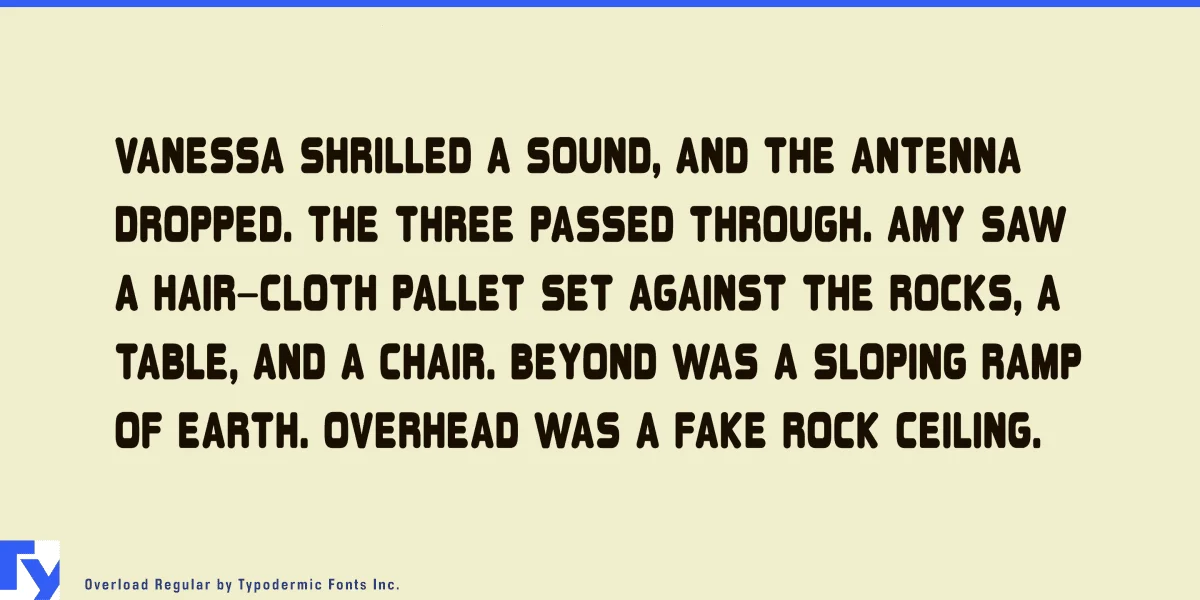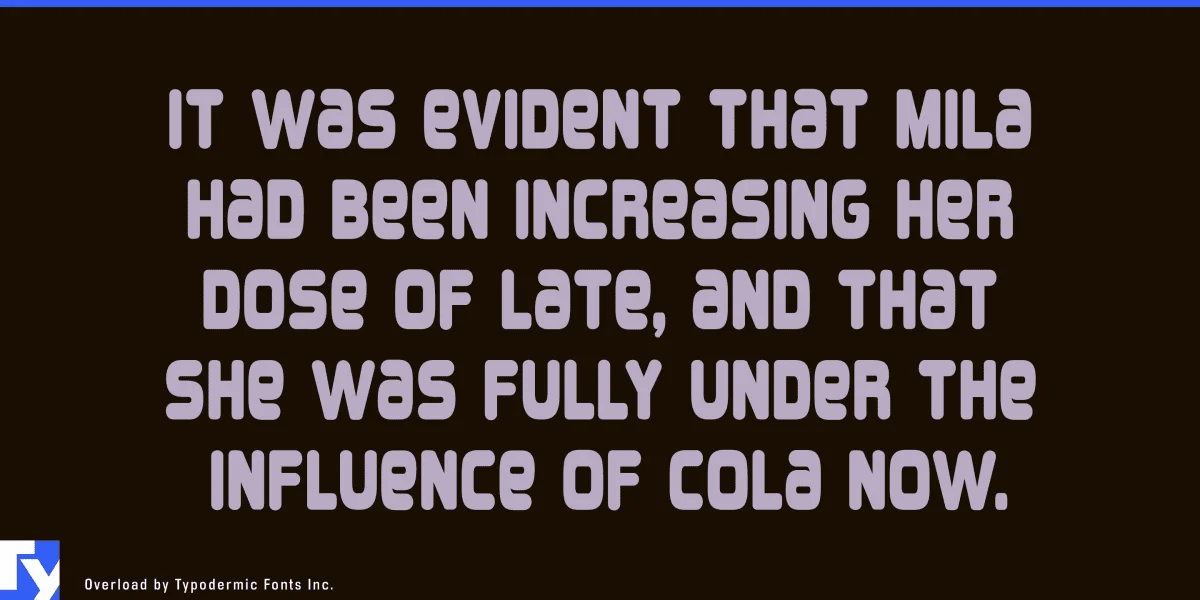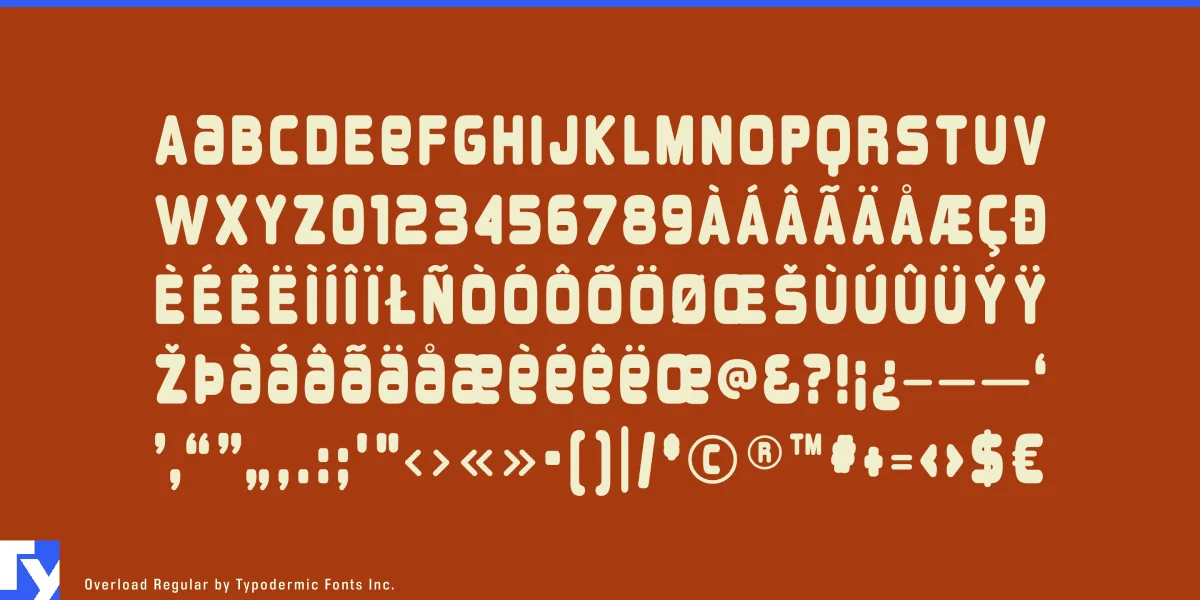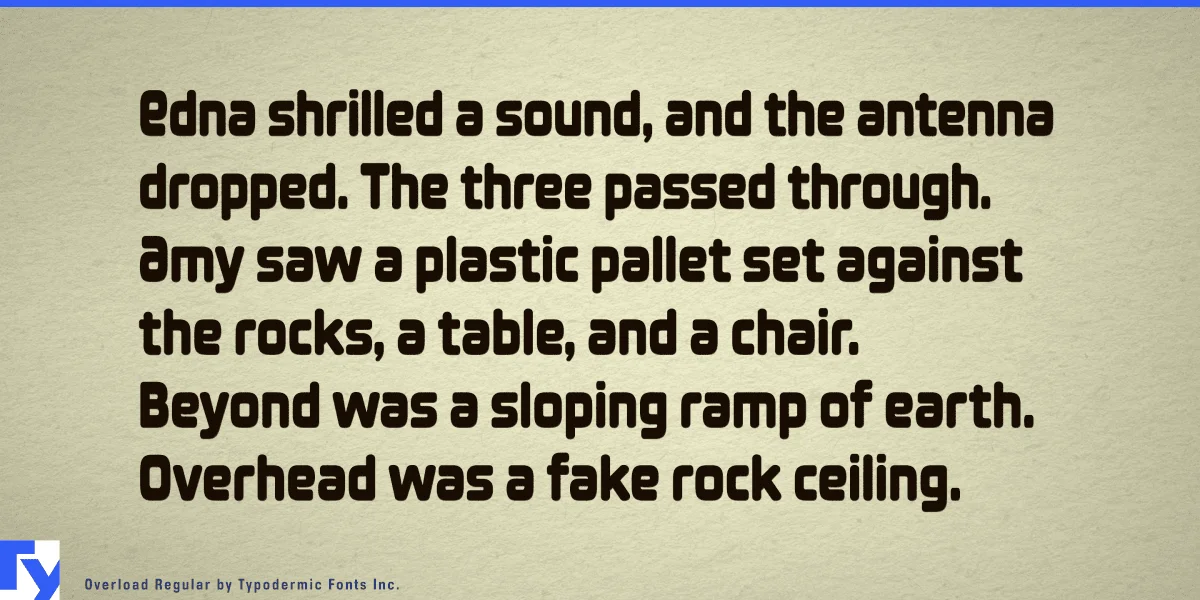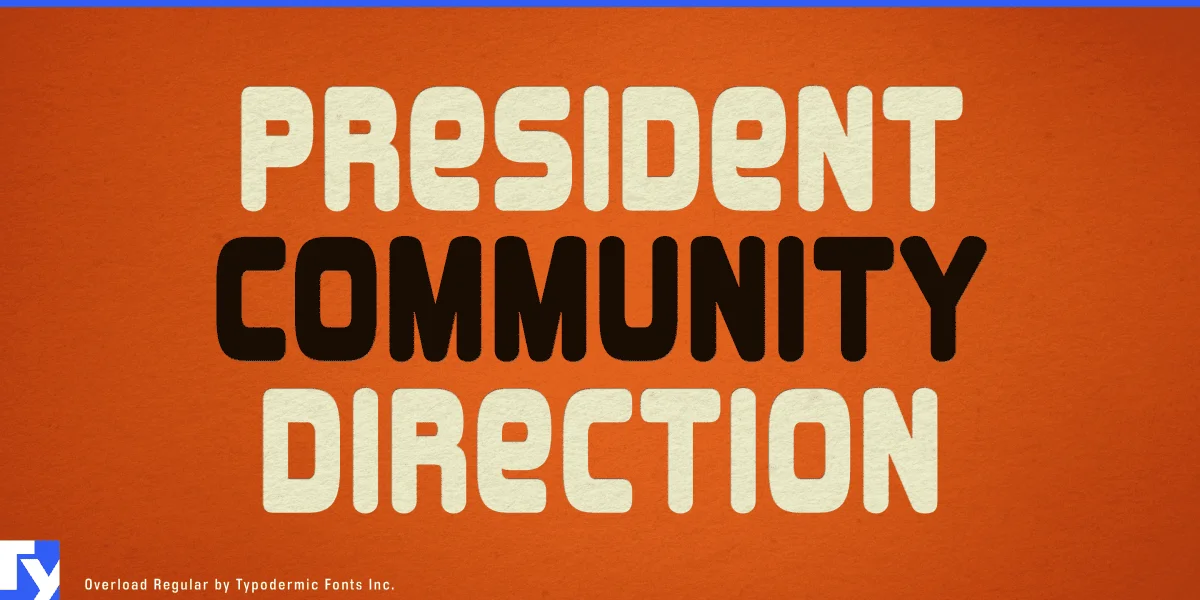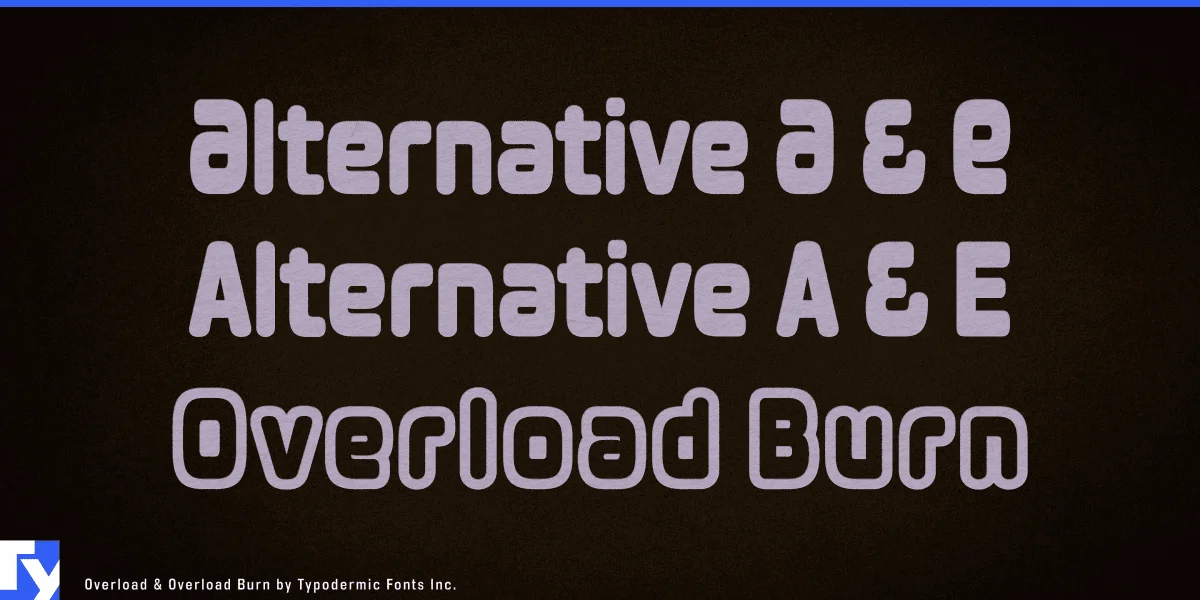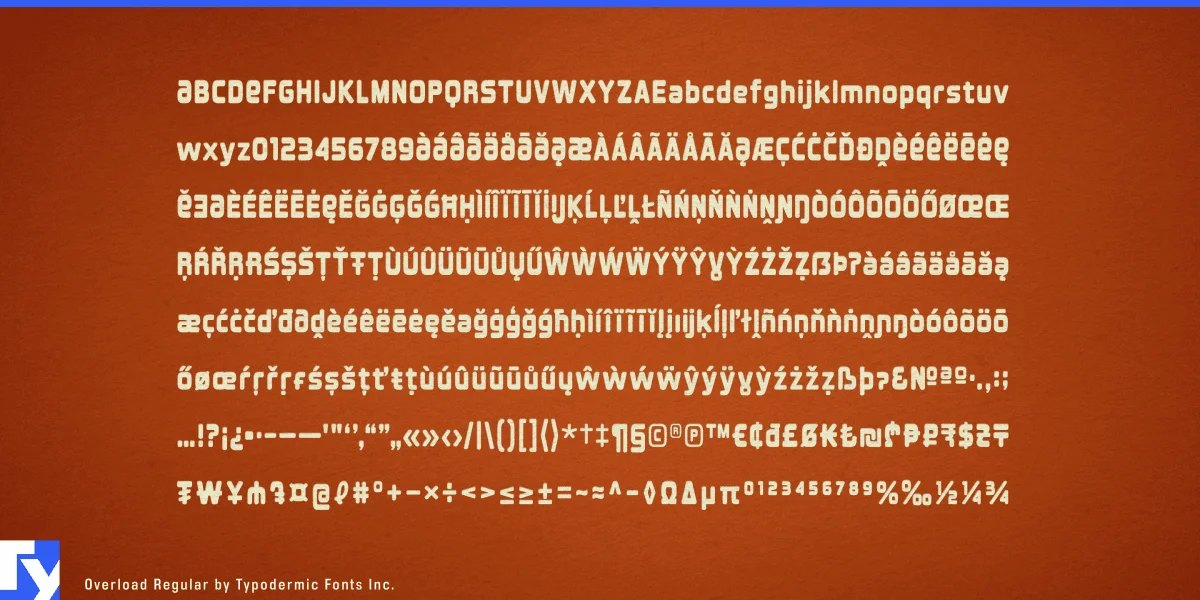
Overload is a 1998 heavy headline howitzer. Rounded techno letterforms with unicase A and E inject Y2K aesthetics into your words. In 2022, a lowercase set was added—the original A and E styles can be found in the OpenType stylistic alternatives collection. Overload has OpenType fractions, numerical ordinals, and a large number of money symbols. Overload Burn is a supplementary outline style. Most Latin-based European writing systems are supported, including the following languages. Afaan Oromo, Afar, Afrikaans, Albanian, Alsatian, Aromanian, Aymara, Azerbaijani, Bashkir (Latin), Basque, Belarusian (Latin), Bemba, Bikol, Bosnian, Breton, Cape Verdean, Creole, Catalan, Cebuano, Chamorro, Chavacano, Chichewa, Crimean Tatar (Latin), Croatian, Czech, Danish, Dawan, Dholuo, Dutch, English, Estonian, Faroese, Fijian, Filipino, Finnish, French, Frisian, Friulian, Gagauz (Latin), Galician, Ganda, Genoese, German, Gikuyu, Greenlandic, Guadeloupean Creole, Haitian Creole, Hawaiian, Hiligaynon, Hungarian, Icelandic, Igbo, Ilocano, Indonesian, Irish, Italian, Jamaican, Kaingang, Kanuri, Kaqchikel, Karakalpak (Latin), Kashubian, Kikongo, Kinyarwanda, Kirundi, Kurdish (Latin), Latvian, Lithuanian, Lombard, Low Saxon, Luxembourgish, Maasai, Makhuwa, Malay, Maltese, Māori, Moldovan, Montenegrin, Nahuatl, Ndebele, Neapolitan, Norwegian, Novial, Occitan, Ossetian (Latin), Papiamento, Piedmontese, Polish, Portuguese, Quechua, Rarotongan, Romanian, Romansh, Sami, Sango, Saramaccan, Sardinian, Scottish Gaelic, Serbian (Latin), Shona, Sicilian, Silesian, Slovak, Slovenian, Somali, Sorbian, Sotho, Spanish, Swahili, Swazi, Swedish, Tagalog, Tahitian, Tetum, Tongan, Tshiluba, Tsonga, Tswana, Tumbuka, Turkish, Turkmen (Latin), Tuvaluan, Uzbek (Latin), Venda, Venetian, Vepsian, Võro, Walloon, Waray-Waray, Wayuu, Welsh, Wolof, Xavante, Xhosa, Yapese, Zapotec, Zarma, Zazaki, Zulu and Zuni.